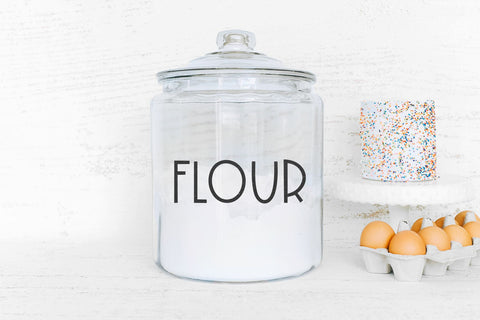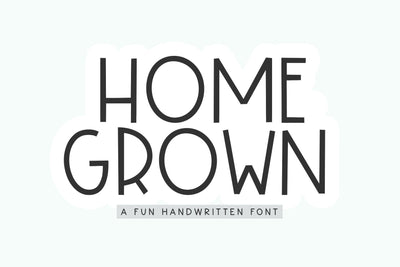
Homegrown - Handwritten Farmhouse Font
Homegrown is a handwritten font perfect for your farmhouse designs!
Use this font for your cricut projects, svg files, farmhouse signs, shirts, decor, stickers, procreate and more!